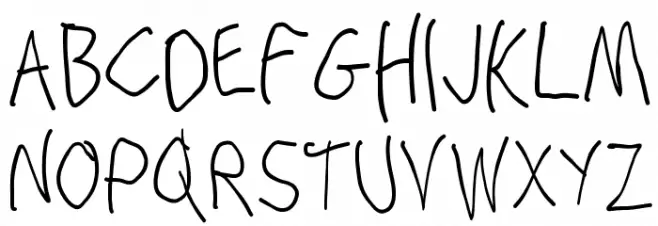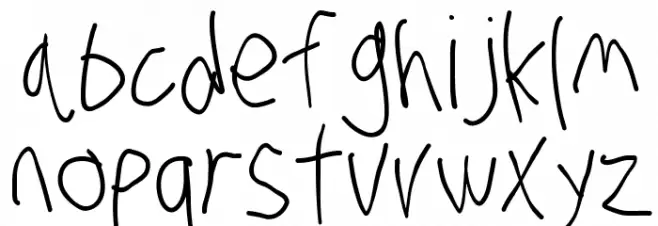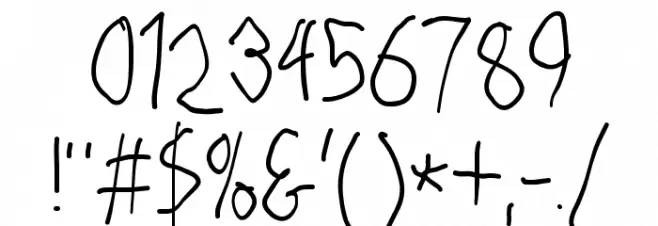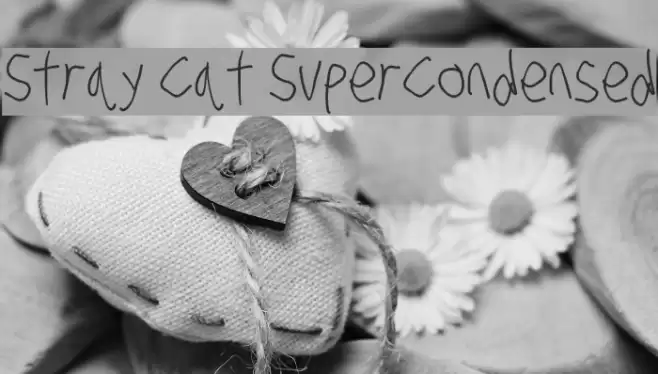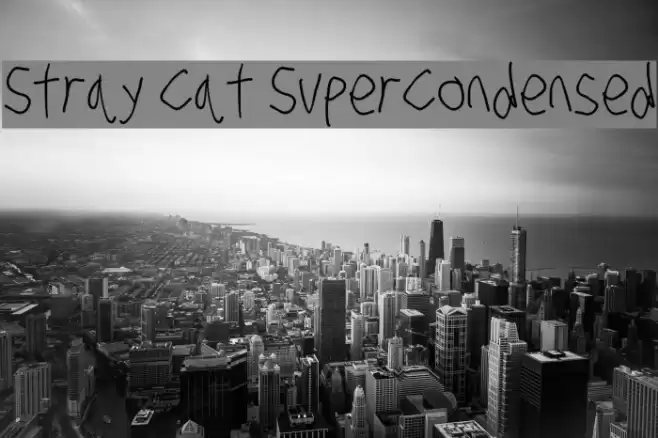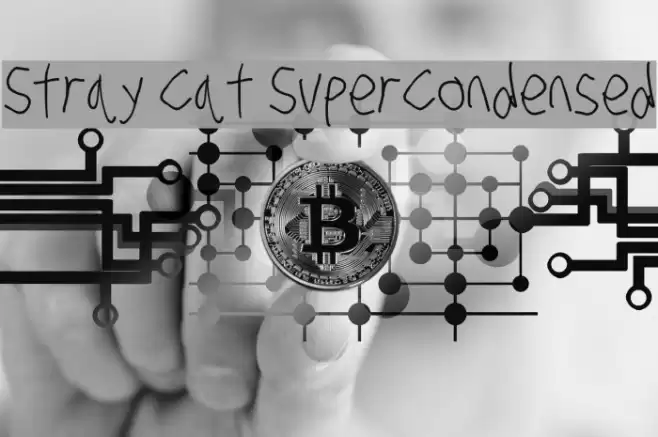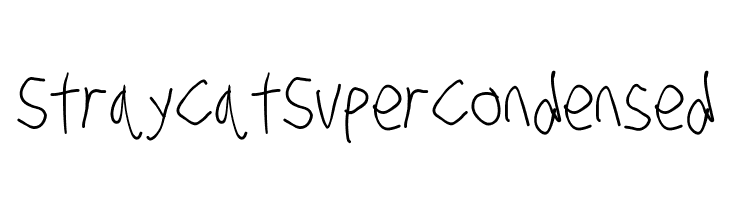
Stray Cat SuperCondensed
This font exhibits a playful and casual handwritten style, characterized by its irregular and spontaneous strokes. The letters are tall and narrow, giving it a condensed appearance. Each character has a unique, slightly quirky form, contributing to its informal and approachable vibe. The strokes are uneven, with varying thicknesses that add to the font's dynamic and lively feel. The overall design is reminiscent of quick, freehand writing, making it suitable for projects that require a personal touch.
A playful, handwritten font with a condensed and casual style.
- Proposed Projects: Ideal for greeting cards, children's books, casual branding, and social media graphics.
- Width: Condensed
- Overall Style: Casual
- Use Case: Headlines, Informal text, Creative projects